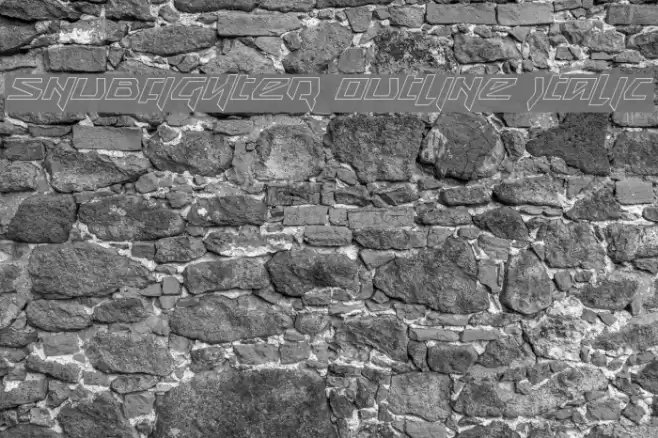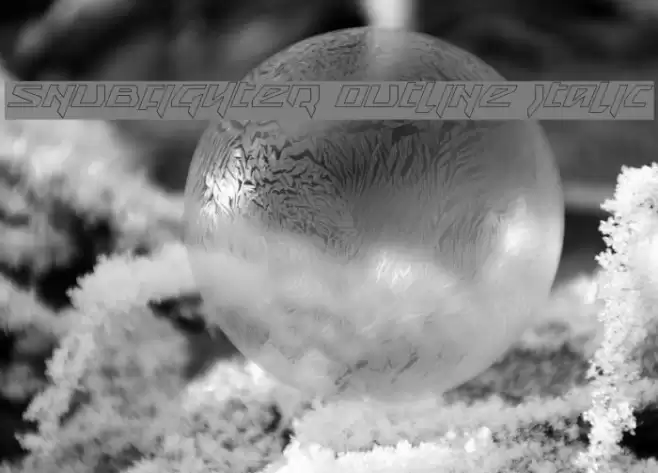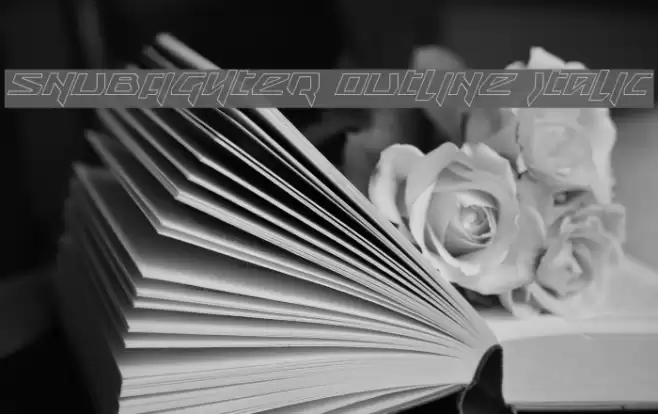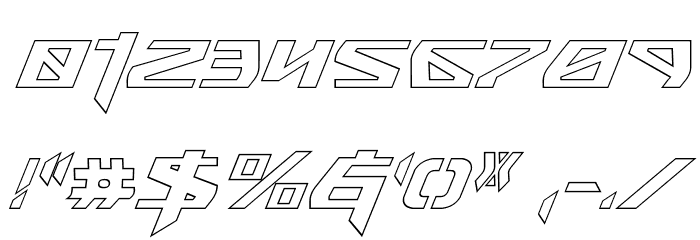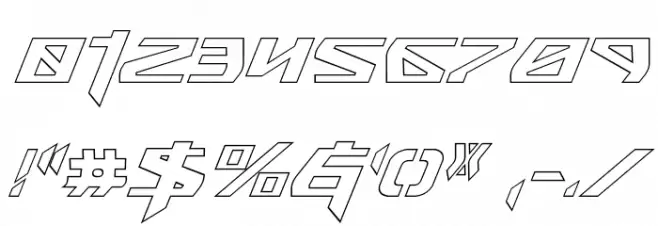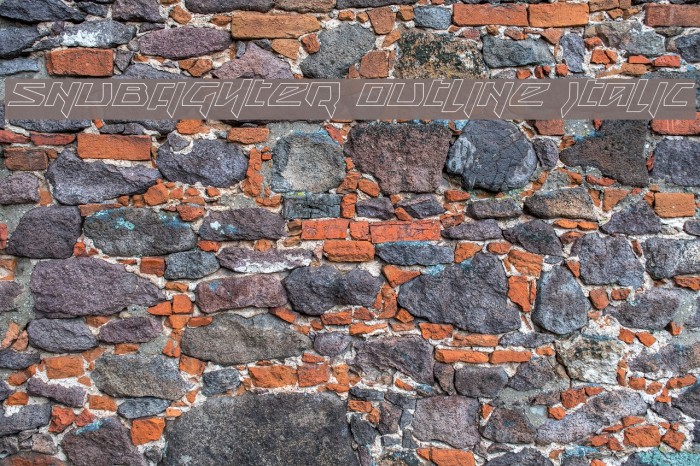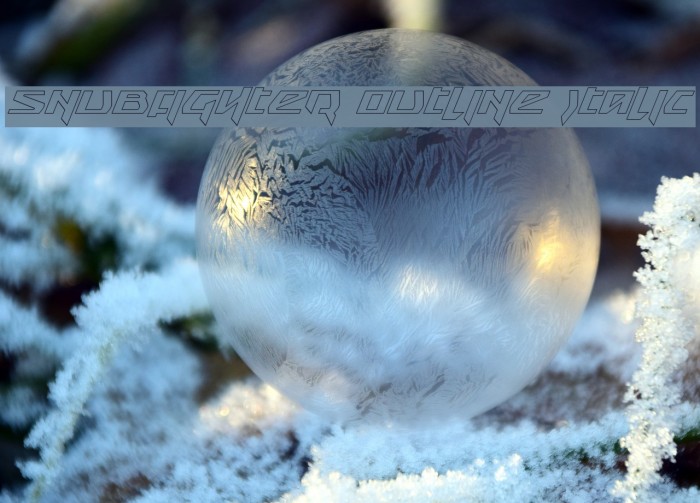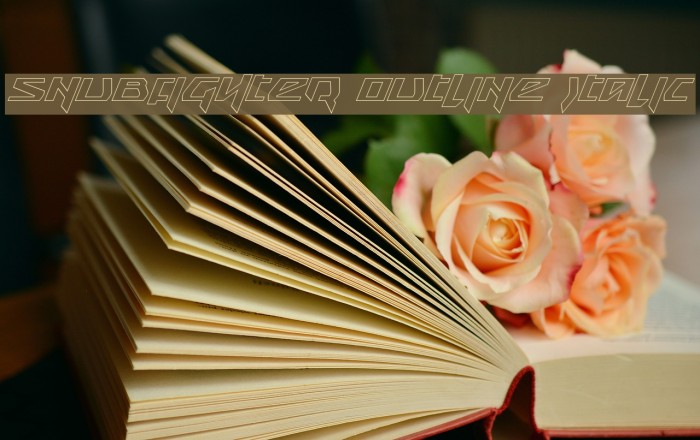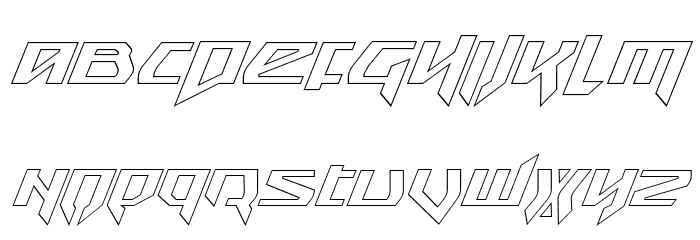
Snubfighter Outline Italic Font
Snubfighter Outline Italic Description
This font features a bold, angular design with a futuristic and edgy appearance. The characters are outlined, providing a hollow effect that enhances its modern aesthetic. Each letter is sharply defined with geometric precision, giving it a dynamic and aggressive look. The italic slant adds to its sense of motion and speed, making it ideal for projects that require a sense of urgency or modernity. The font's unique style is consistent across uppercase, lowercase, numbers, and special characters, maintaining a cohesive visual theme.
A bold, angular, and futuristic outlined font with an italic slant from Sci-fi fonts.
- Proposed Projects: Ideal for sci-fi themed designs, video game titles, tech branding, and dynamic posters.